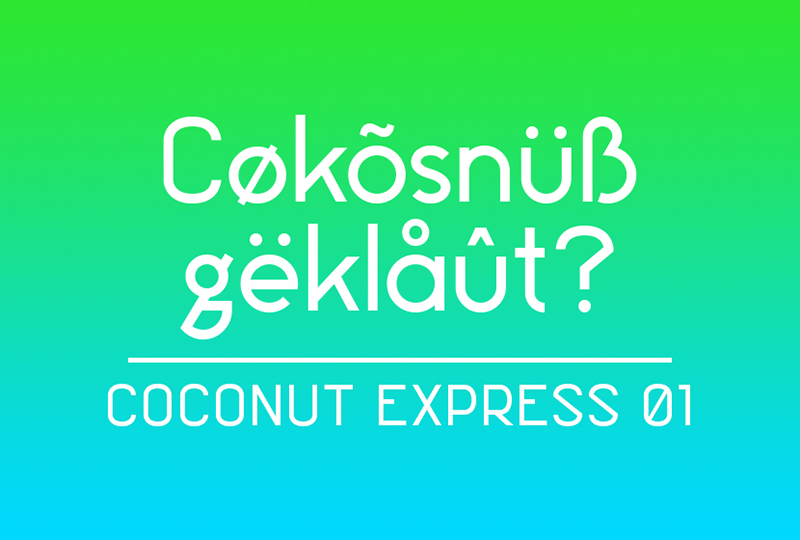
Font name: | Coconut Express 01 |
Author: | Josef Faustbeck |
Note by Josef Faustbeck | |
Coconut Express 01 is a geometric san serif typeface and has some interesting Characters. For example the “g”, “S”, “?”,... Tis is the Trial-Version Buy the Full-Version @ https://creativemarket.com/nizedesign/538054-Coconut-Express-Font http://www.nize.at |